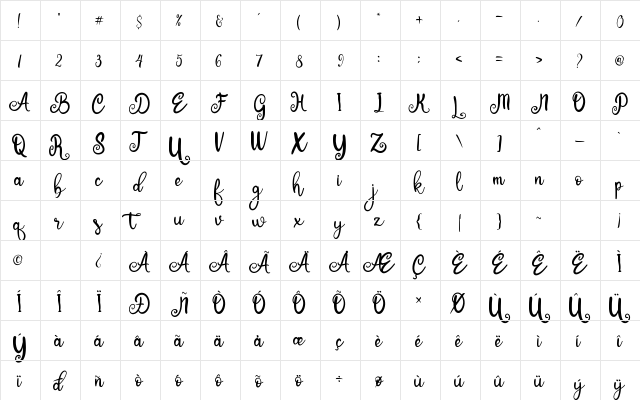
Baby Bunny Script Regular
| Foundry | Hans Co |
| Designer | Burhan Afif |
Design Context for Baby Bunny Script Typeface
Baby Bunny Script brings a calligraphic fluidity to the page — its connecting strokes and expressive curves give it an unmistakably human quality.
Font Pairing: Combine Baby Bunny Script with a simple geometric sans for maximum contrast — the tension between flowing curves and clean structure is a classic typographic pairing.
Pro Tip: Pair Baby Bunny Script with a clean sans-serif for supporting text. The contrast between fluid script and geometric structure creates an elegant typographic hierarchy.